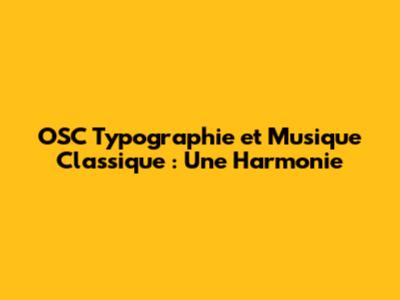
Hey guys! Ever wondered how the world of classical music and typography, seemingly distinct universes, could possibly collide? Well, buckle up, because we're diving headfirst into the fascinating world of OSC Typographie and its surprising connections with the grandeur of classical music. We'll explore how these two seemingly disparate art forms actually complement and enhance each other, creating a symphony of visual and auditory delight. This exploration is not just about appreciating the beauty of fonts and the richness of musical compositions, it's about understanding how the principles of design and music – rhythm, harmony, and balance – intertwine to create a holistic experience. We're going to examine how visual elements, much like musical notes, can evoke specific emotions, and how both disciplines rely on structure and form to convey their messages. So, get ready to see how the elegance of OSC Typographie finds its echo in the resonant chambers of classical music.
La Typographie OSC et Son Langage Visuel
Alright, let's kick things off by getting familiar with OSC Typographie. Now, if you're like most people, you probably think of typography as just the art of arranging type – you know, choosing fonts, sizes, and spacing. But trust me, it's so much more! OSC Typographie is a specific approach that emphasizes the expressiveness and impact of text, making sure every word and letter speaks volumes. Think of it as the architect of the written word. It's about crafting visual communication that's not just readable, but also engaging, memorable, and, dare I say, beautiful. The goal is to make sure the message hits home, loud and clear.
This kind of typography does not just concern itself with the appearance of the text; it is deeply concerned with the message that is sent. A font choice, for instance, can set a mood, just like a composer's choice of instruments. The way letters are arranged on a page can mirror the rhythm of a musical piece, creating visual harmony. Consider the way a title is displayed – large, bold, and center-aligned, it's like a powerful crescendo in a piece of music, drawing the viewer in immediately. On the other hand, a more delicate, carefully spaced paragraph whispers its message like a gentle melody. OSC Typographie is about knowing how to make those choices so that they work together, each component supporting and enhancing the others. Therefore, it's a visual language that can communicate as much as words themselves.
Then, there is the whole aspect of layout. How elements are positioned on a page creates a visual flow, guiding the eye in the same way a musical score guides the ear. Negative space, the empty spaces around text and images, becomes the silence in music. Just as silence allows the notes to breathe, negative space makes the text more accessible and enjoyable. Each decision in OSC Typographie contributes to the story that is told – a story that resonates in a way that is both visual and intellectual, which can provide a powerful medium of communication. Thus, OSC Typographie is not merely about presenting text; it is about creating an experience. The goal is to connect with the audience on a deeper level by using form to tell the story.
Les Échos de la Musique Classique
Now, let's tune into the sounds of classical music. Classical music is often associated with the most sophisticated and emotional experiences. From the intricate compositions of Bach to the emotional depth of Beethoven and the romanticism of Chopin, it has the capacity to arouse a wide array of emotions. Each composer brings a unique voice, each piece a complete experience, much like the great typographers who have made their mark on design history. The core of classical music is built on structure and form. Think of the sonata form with its exposition, development, and recapitulation – it's like a meticulously planned design layout with its introduction, body, and conclusion. These are fundamental to how we process music, to how we understand it. Rhythm is the heartbeat of music, the driving force that propels it forward.
Consider the way tempo changes build tension and release, just as variations in font size and weight do on a page. Harmony is when different notes combine to produce a pleasant sound, much like the visual harmony achieved by a well-chosen color palette or font pairing. Balance is essential in both music and design; without it, the message is lost. The balance in music is reached through dynamics and the use of contrasting sections. In design, this is accomplished through the use of different elements to create a visually attractive and coherent piece. Classical music composers are like typographers, designing soundscapes to convey stories and elicit emotions. Composers and typographers both have the same underlying goals: to tell stories, to engage emotions, and to create a lasting impression. They achieve this through the careful arrangement of their respective elements, whether they be notes or letters. Thus, we have the first connection between music and typography. Both forms of art employ design to achieve their effects, a form that, as it is understood, is the backbone of their impact.
L'Harmonie Entre les Deux Mondes
Here’s where it gets really interesting: how do these two worlds—OSC Typographie and classical music—actually intertwine? It's all about rhythm, harmony, and balance, guys. Think about how the visual rhythm of text on a page can mirror the rhythmic patterns in a musical piece. The use of bold text, italics, and different font sizes can act like musical accents, drawing the eye to key information, just as a composer might emphasize certain notes or phrases. This is where it gets fun! The harmony of a design is about the combination of elements, colors, and fonts that work together to create a cohesive look. A well-designed website, like a well-composed symphony, has a sense of flow and balance. Nothing is out of place; every element complements the whole.
Similarly, the balance in a design is essential, just as it is in music. Balance ensures that the page is not overwhelmed by one element, be it a specific font or color. Imagine a design where the title is too large or too heavy in comparison to the other elements; it would be like listening to a piece of music where a single instrument is constantly playing too loudly, drowning out the other instruments and ruining the experience. Both forms of art use contrasts to create interest and emphasize certain points. In music, a sudden change in tempo or dynamics can evoke a sense of excitement or anticipation, while, in design, a bold, striking headline will draw the attention of the reader. Both classical music and typography are reliant on structure, just as a building needs a structural framework to support its weight. The structure may take the form of the design’s grid or the musical arrangement. Both design and music use contrast to create interest and emphasis. The careful arrangement of these elements generates an experience that is at once aesthetically pleasing and intellectually stimulating, demonstrating that the two worlds of classical music and typography are not worlds apart, but connected in a manner that inspires and moves us.
Exemples Concrets et Applications Pratiques
Let’s look at some real-world examples. Imagine designing a website for a classical music concert. The designer could use fonts that evoke the elegance and sophistication of classical music. Serif fonts, known for their classic feel, could be used for the main body of text. Sans-serif fonts, which offer a more modern look, could be used for the headings. This is what you would call an informed design decision. The color palette could be inspired by the concert venue or the composer's most famous works. Subtle gradients and textures can be used to add depth and interest, much like the varied instrumentation of an orchestra.
The layout could mimic the structure of a musical score. The navigation menu could be aligned to the left, like the time signature at the beginning of a musical piece, providing structure and guiding the viewer through the content. The use of white space, just like the silence in music, will give the design breathing room and make it more inviting. Now, let’s consider a brochure for a museum exhibition about musical instruments. The brochure's typography might reflect the different periods and styles of the instruments on display. For example, a vintage font might be used to describe an instrument, echoing the period of its creation. The images could use a photo editing technique. By choosing fonts, colors, layouts, and image styles, we can create a cohesive experience that evokes the feelings that are related to classical music. This is not just a job; it is a collaborative effort between sound and vision. These concrete examples show that by using these connections, we can create designs that are visually appealing and deeply meaningful, strengthening the emotional resonance and impact of the message that is sent.